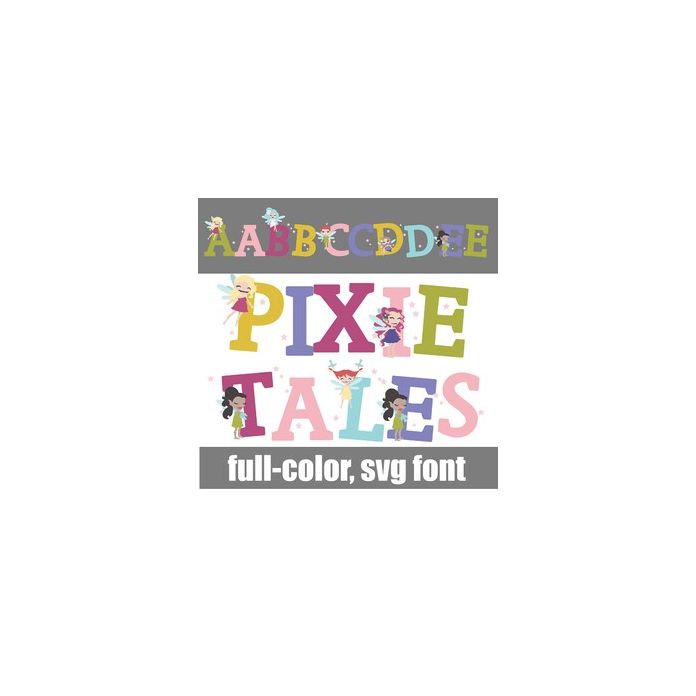
This full-color font features little fairies on the uppercase. There is an alt case w/ additional colors you can access through your system or Silhouette's glyph map.